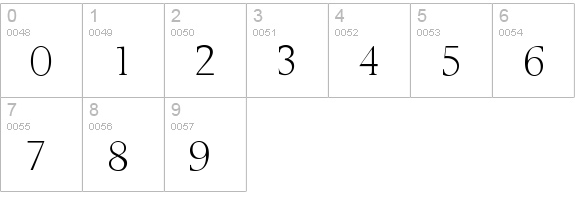
Belfast-Xlight is a sleek and modern font that exudes elegance and sophistication. With its thin lines and minimalist design, this font is perfect for creating a clean and contemporary look in your designs. Whether you're working on a branding project, website design, or any other creative endeavor, Belfast-Xlight will add a touch of refinement to your work. What's even better is that Belfast-Xlight is completely free to download at FontsMarket.com. You can elevate your designs without any cost, making it an ideal choice for budget-conscious designers looking for high-quality typography. Don't miss out on the opportunity to enhance your projects with the timeless beauty of Belfast-Xlight. Download it today and see the difference it can make in your design work.